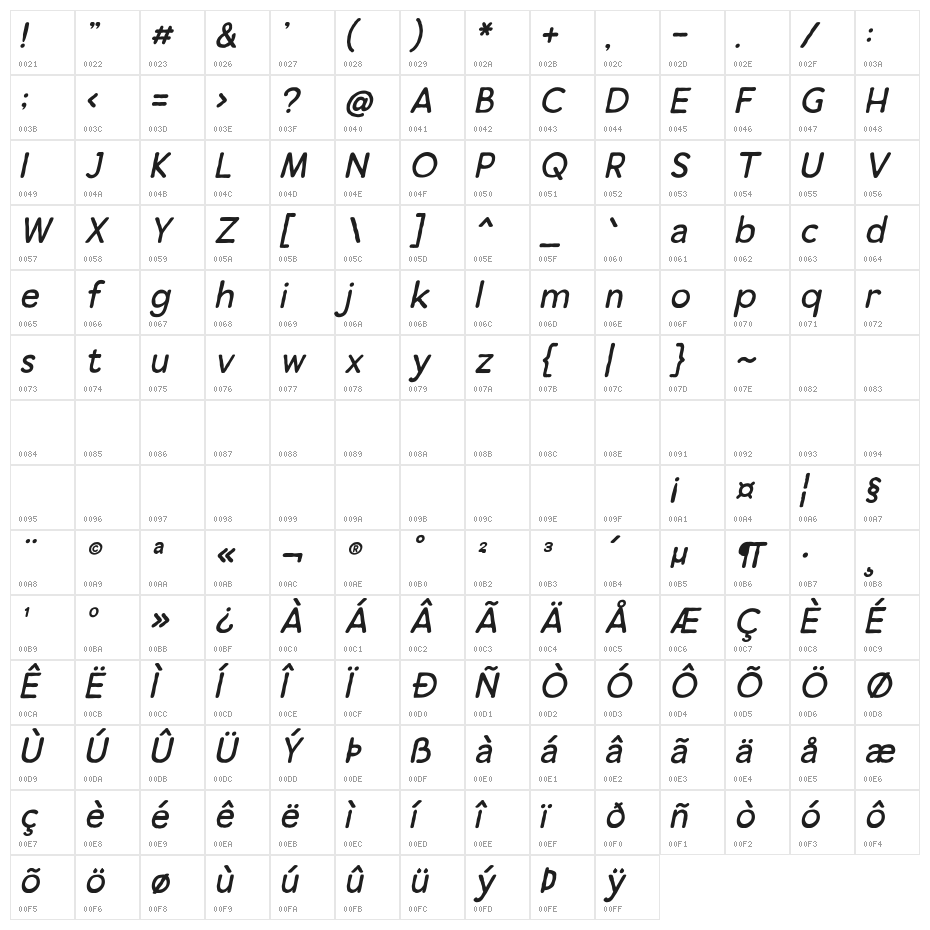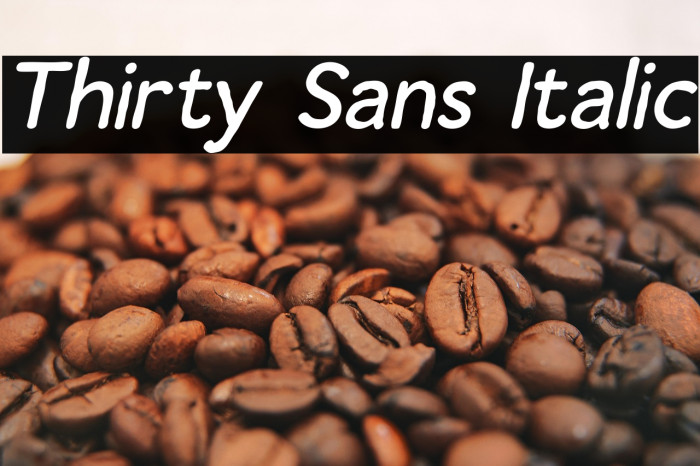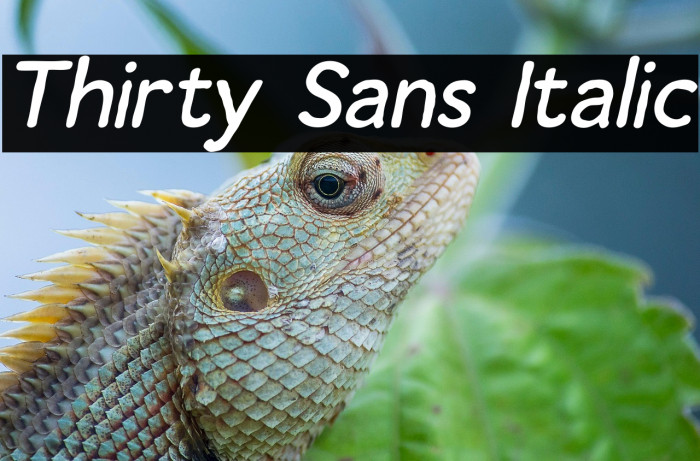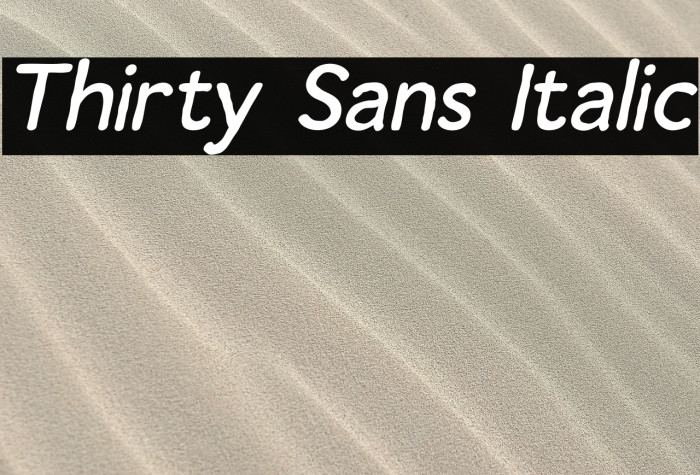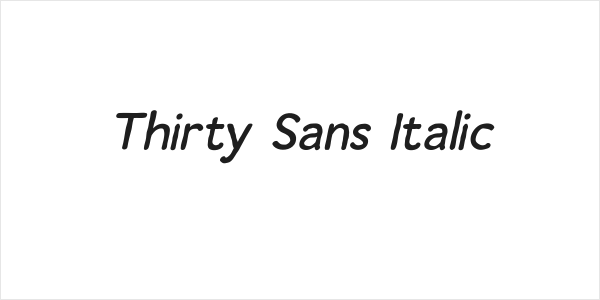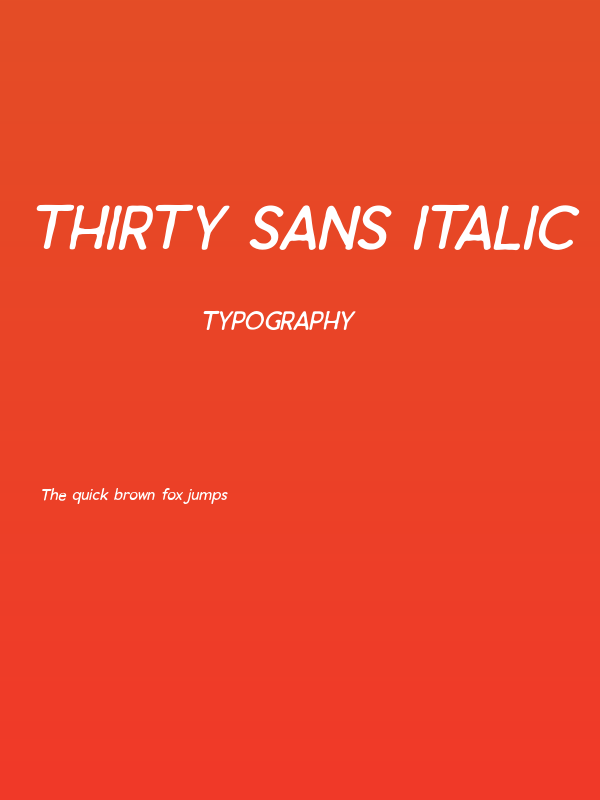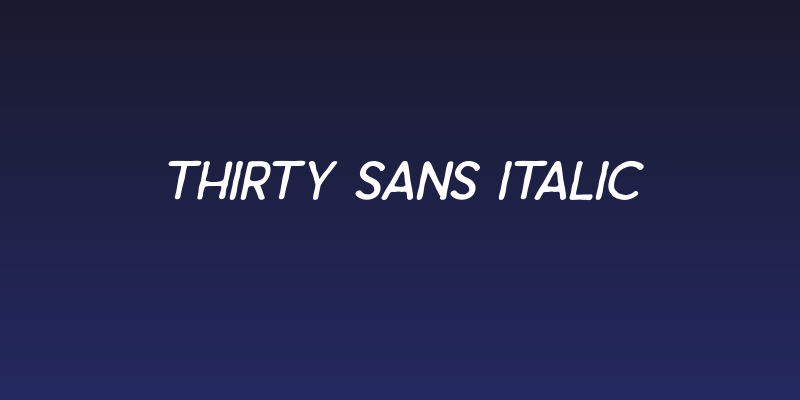
Thirty Sans Italic Font
Thirty Sans Italic Description
This font exhibits a modern and sleek design with a slightly italicized style, giving it a dynamic and forward-leaning appearance. The characters are well-defined and maintain a consistent stroke width, contributing to a clean and legible look. The uppercase and lowercase letters are proportionate, with rounded edges that soften the overall aesthetic. The numerals and special characters are designed to match the letterforms, ensuring a cohesive appearance across all text. This font is versatile, suitable for both digital and print media, and can be used effectively in various design contexts.
| Proposed Projects | Ideal for branding, advertising, digital media, and editorial design. |